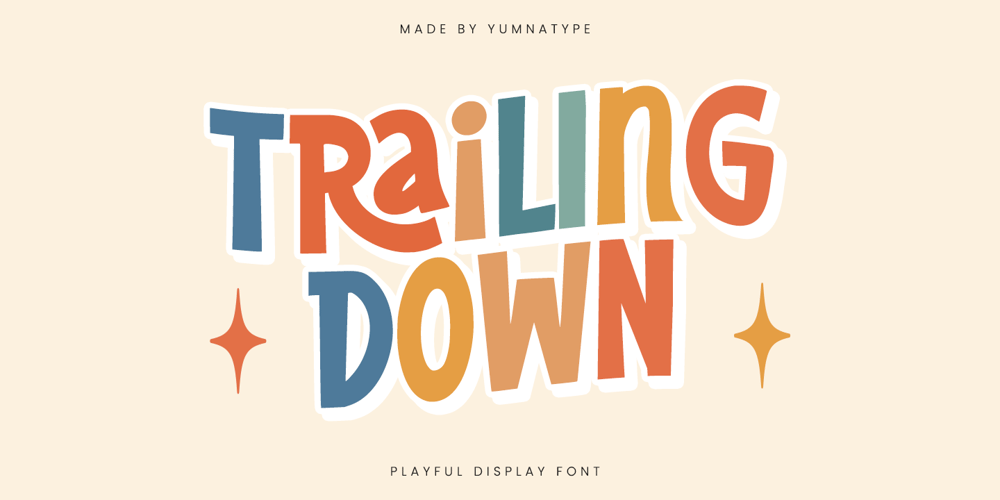
Trailing Down Font Family was designed by Donis Miftahudin and published by Yumna Type. Trailing Down contains 1 styles and family package options. Trailing Down is a delightful display font crafted with a playful spirit and bold presence. Characterized by its thick, uniform strokes and very low contrast, Trailing Down exudes a sense of whimsy and fun, perfect for grabbing attention and adding a touch of charm to any project. Let Trailing Down bring a bold, cheerful vibe to your next design adventure. In addition, enjoy the features here.Features: Ligatures Multilingual Supports PUA Encoded Numerals and Punctuations Trailing Down fits in headlines, logos, posters, flyers, branding materials, print media, editorial layouts, and many more designs. Find out more ways to use this font by taking a look at the font preview.Thanks for purchasing our fonts. Hopefully, you have a great time using our font. Feel free to contact us anytime for further information or when you have trouble with the font. Thanks a lot and happy designing.